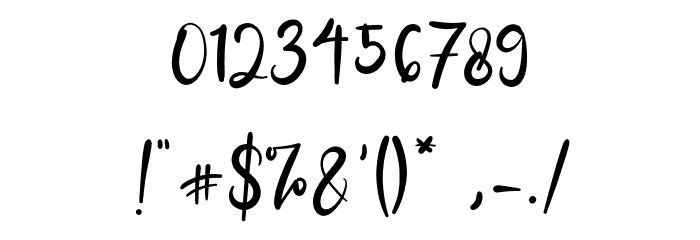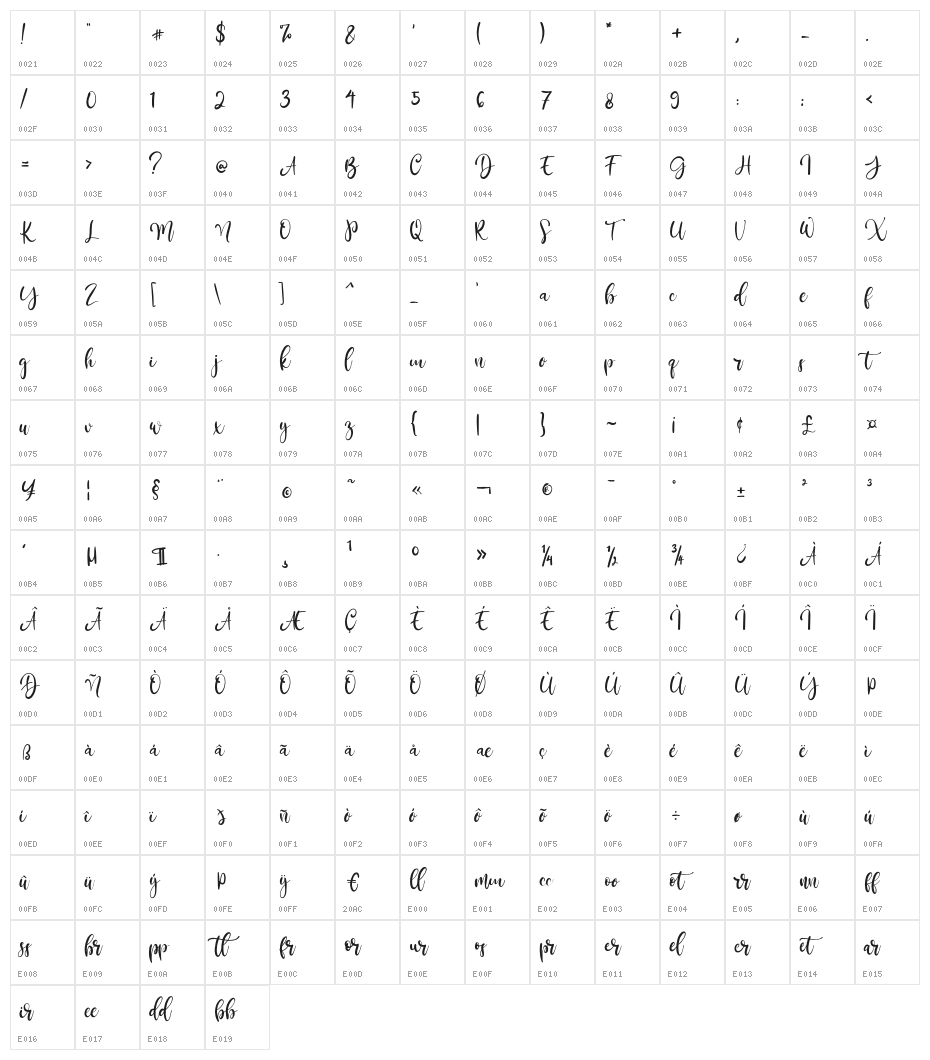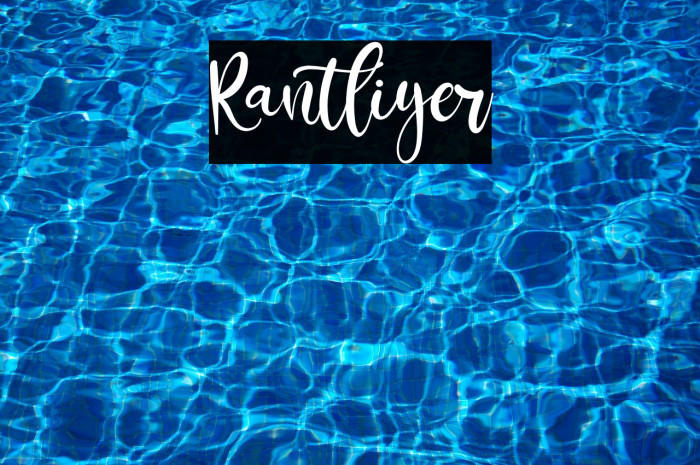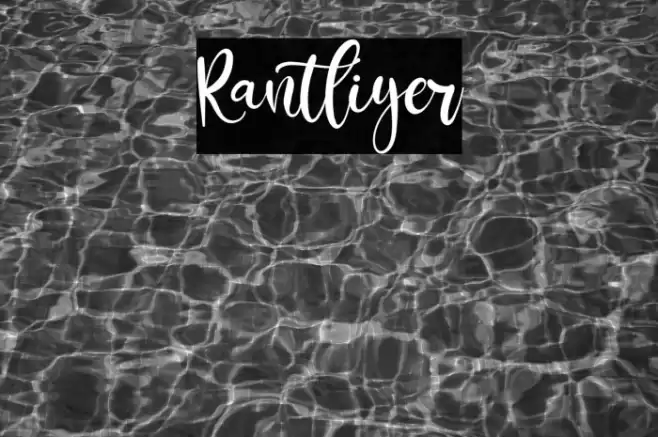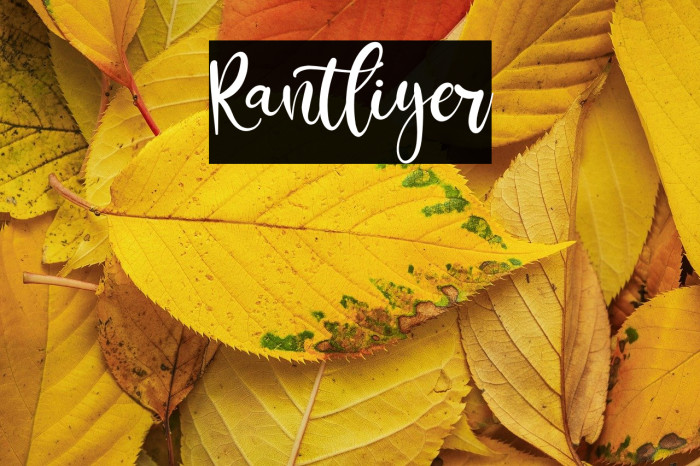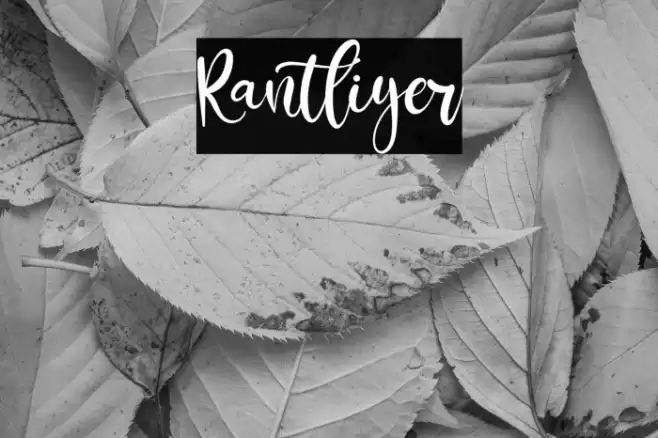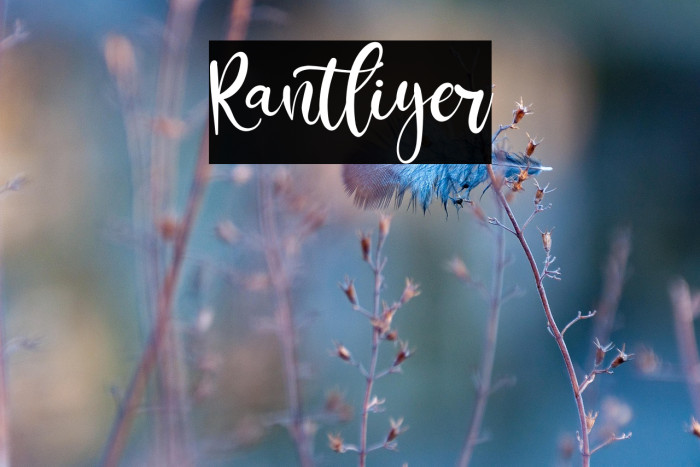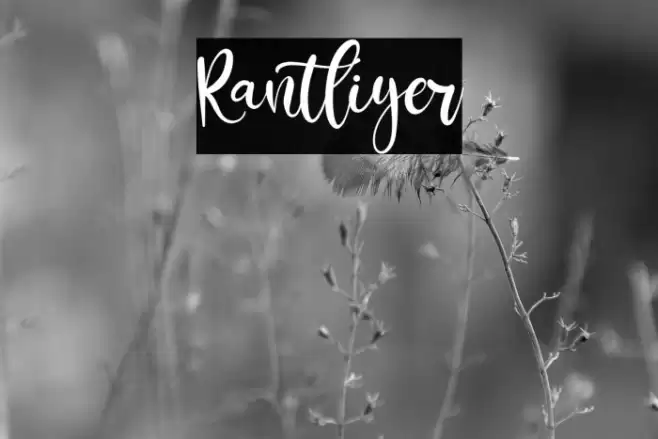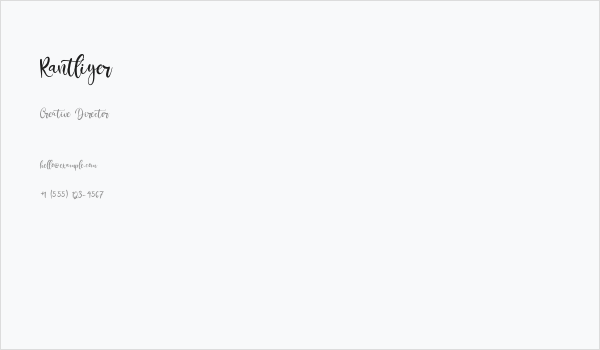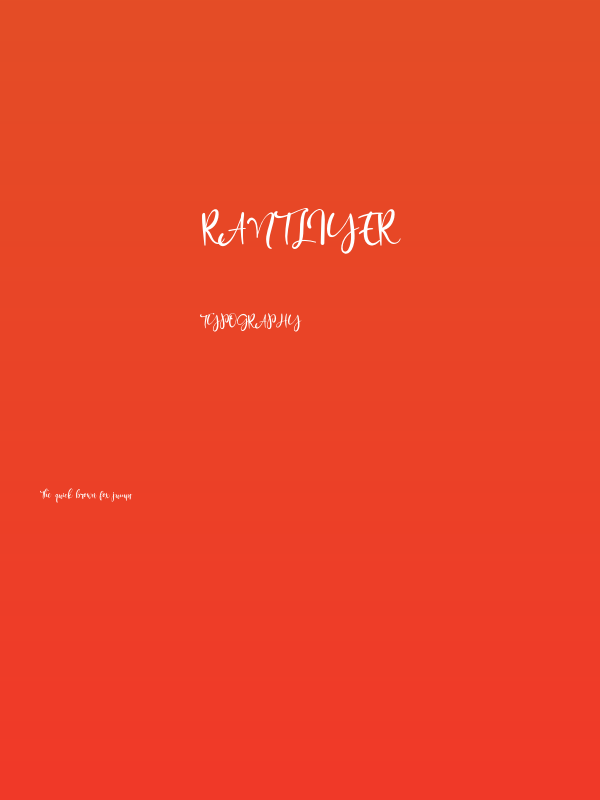
Rantliyer Font
Rantliyer Description
This font exudes a lively and expressive character, with its flowing script style that mimics elegant handwriting. The letters are connected smoothly, creating a sense of movement and fluidity. The uppercase letters are bold and prominent, while the lowercase letters maintain a graceful and delicate appearance. The numerals and special characters are crafted with the same attention to detail, ensuring consistency throughout. The overall design is both sophisticated and approachable, making it suitable for a variety of creative projects.
| Use Case | Logos, Invitations, Headlines |
| Proposed Projects | Ideal for wedding invitations, greeting cards, branding, and social media graphics. |